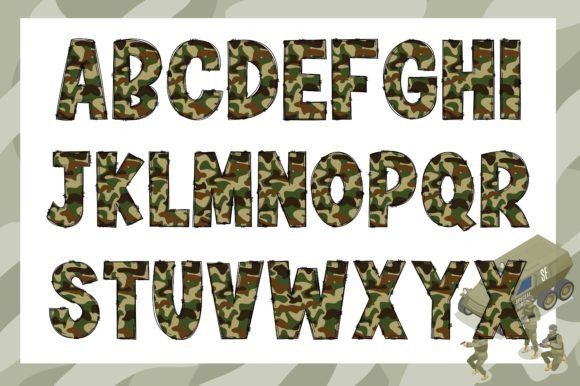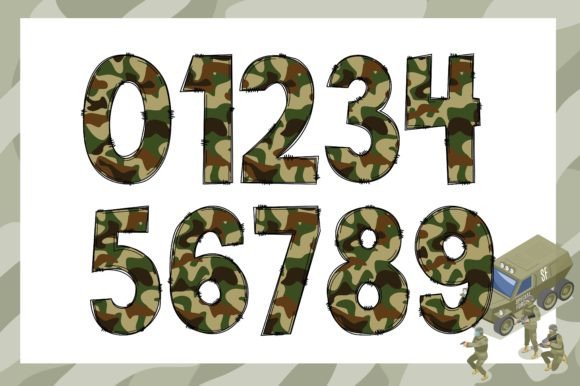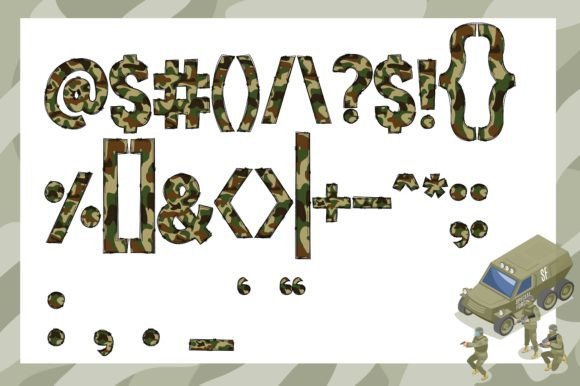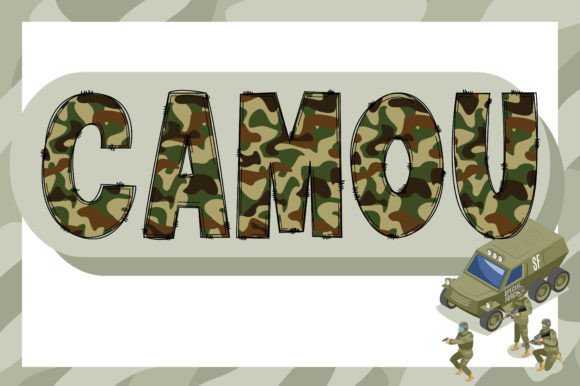
Introducing Camou Font: The Ultimate Military Camouflage Typeface
Are you tired of using the same old fonts for your designs? Look no further! Camou Font is here to revolutionize your creative projects with its bold military camouflage style. This unique and eye-catching font is perfect for designers and crafters who want to add a touch of edginess and originality to their work.
What is Camou Font?
Camou Font is a bold, green forest pattern font that mimics the classic military camouflage design. The font’s distinctive style makes it stand out from the crowd, adding a cool and rugged touch to any design. Whether you’re working on a logotype, headline, or brand identity, Camou Font is sure to make your project look fresh and exciting.
Perfect for Various Industries
Camou Font’s versatility makes it suitable for a wide range of industries and applications. Some of the areas where this font can shine include:
- Apparel Industry: Add a military-inspired touch to your fashion brand’s logo or marketing materials.
- Posters and Flyers: Create eye-catching promotional materials for movies, music events, or games.
- Magazines and Books: Use Camou Font to add a bold and edgy touch to your publication’s title or headings.
- Comics and Cartoons: Bring your characters to life with a font that exudes action and adventure.
- Corporate Identity: Establish a strong brand presence with a unique and memorable font.
Why Choose Camou Font?
So, what sets Camou Font apart from other fonts? Here are just a few reasons why designers and crafters love this military camouflage typeface:
- Unique Style: Camou Font’s bold and distinctive design ensures your project will stand out from the crowd.
- High-Quality Design: The font is carefully crafted to ensure crisp and clear rendering, even at small sizes.
- Versatile: Use Camou Font for a wide range of projects, from digital designs to print materials.
Tips for Using Camou Font
To get the most out of Camou Font, here are some expert tips:
- Pair with Neutral Colors: Balance out the bold font with neutral colors to avoid overwhelming the design.
- Experiment with Sizes: Play with different font sizes to create visual interest and hierarchy.
- Use for Headlines: Take advantage of Camou Font’s bold style by using it for headlines and titles.
Camou Font is a game-changer for designers and crafters looking to add a bold and edgy touch to their projects. With its unique military camouflage design, versatility, and high-quality craftsmanship, this font is sure to become a staple in your design arsenal. So why wait? Download Camou Font today and take your designs to the next level!